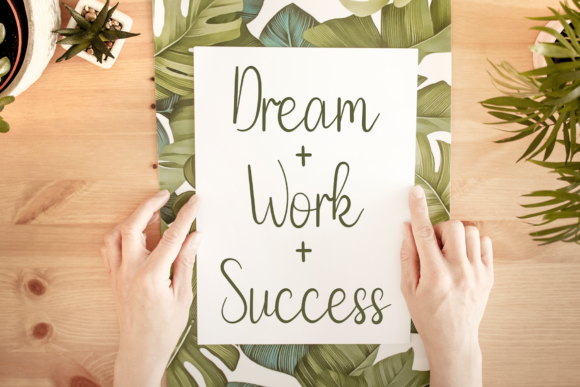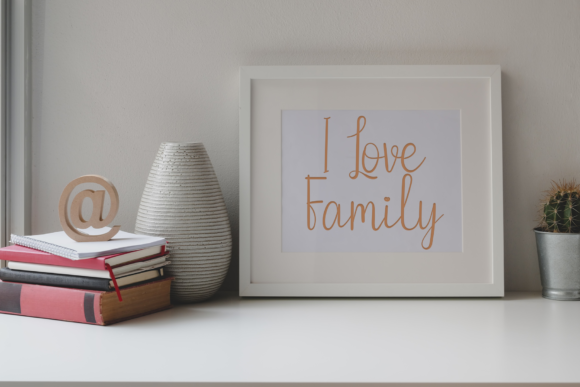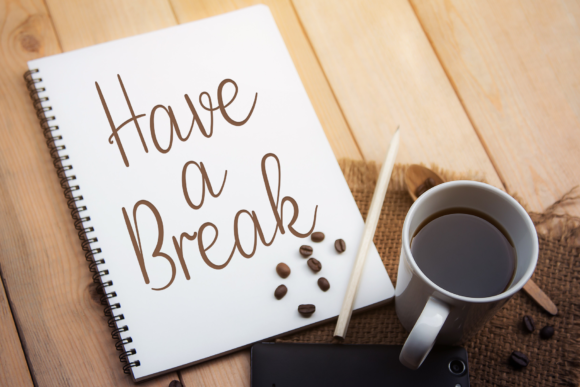
About Babe Letter Font
Babe Letter is a refined and cursive handwritten font. This gentle font will look gorgeous on a variety of design ideas. It will add a joyful and romantic touch to each of your projects!